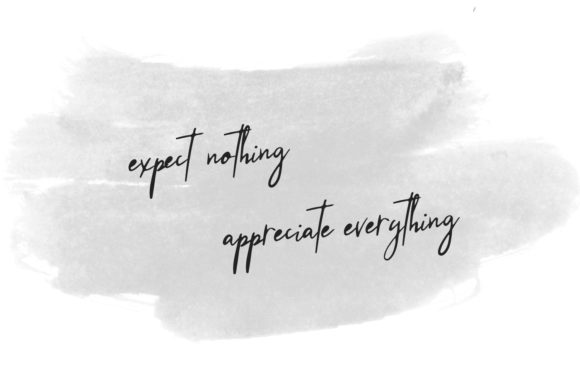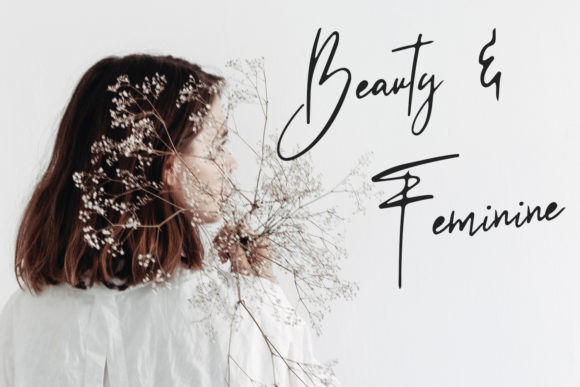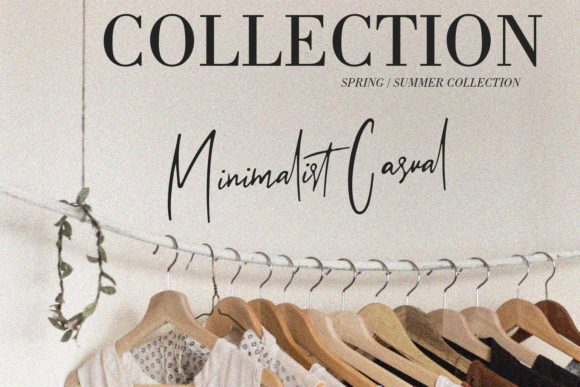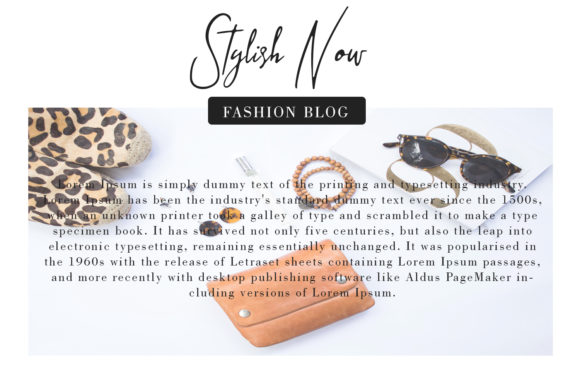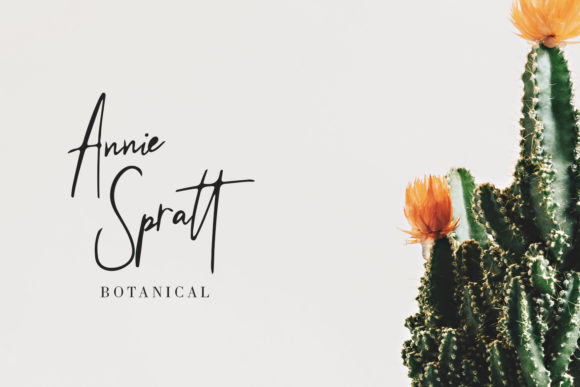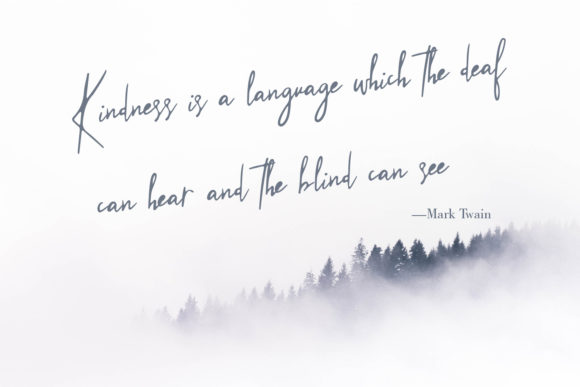
Beringin Font: Elevate Your Designs with Elegance and Sophistication
In the world of typography, few fonts manage to capture the essence of elegance and sophistication as effectively as Beringin. This stunning font, with its incredibly elegant style and original handstrokes, has become a favorite among designers and crafters looking to add a touch of refinement to their projects. In this article, we’ll delve into the world of Beringin Font, exploring its unique features, uses, and benefits.
The Unique Charm of Beringin Font
Beringin Font boasts an exceptionally elegant style that sets it apart from other fonts. Its original handstrokes bring a level of authenticity and personality to any design, making it perfect for projects that demand a high level of sophistication. Whether you’re working on a branding campaign, a wedding invitation, or a packaging design, Beringin Font is sure to make a lasting impression.
One of the standout features of Beringin Font is its versatility. Available in various weights and styles, designers can choose the perfect variation to suit their project’s needs. From bold and dramatic to light and airy, Beringin Font adapts seamlessly to any design aesthetic.
Design Applications for Beringin Font
Beringin Font’s versatility makes it an excellent choice for a wide range of design applications. Here are a few examples:
- Branding and Logo Design: Create a lasting impression with Beringin Font’s elegant style, perfect for luxury brands, high-end products, and services.
- Wedding and Event Invitations: Add a touch of sophistication to your wedding or event invitations with Beringin Font’s beautiful handstrokes.
- Packaging Design: Elevate your product packaging with Beringin Font’s refined style, ideal for high-end products and premium brands.
- Advertising and Marketing: Stand out in the world of advertising with Beringin Font’s unique and eye-catching style.
Benefits of Using Beringin Font
So, why choose Beringin Font for your next design project? Here are some benefits to consider:
- Elegance and Sophistication: Beringin Font brings an unparalleled level of elegance and sophistication to any design.
- Versatility: With various weights and styles available, Beringin Font adapts to any design aesthetic.
- Unique Handstrokes: The font’s original handstrokes add a level of authenticity and personality to any design.
- Easy to Read: Despite its elegant style, Beringin Font remains easy to read, making it perfect for body text and headings.
Tips for Using Beringin Font Effectively
To get the most out of Beringin Font, here are some tips to keep in mind:
- Pair with Neutral Colors: Beringin Font looks stunning when paired with neutral colors, allowing the font to take center stage.
- Experiment with Weights: Try different weights and styles to find the perfect combination for your design.
- Use for Headings and Titles: Beringin Font is perfect for headings and titles, adding a touch of elegance to any design.
In conclusion, Beringin Font is an exceptional choice for designers and crafters looking to add a touch of elegance and sophistication to their projects. With its incredibly elegant style, original handstrokes, and versatility, Beringin Font is sure to become a staple in your design toolkit.